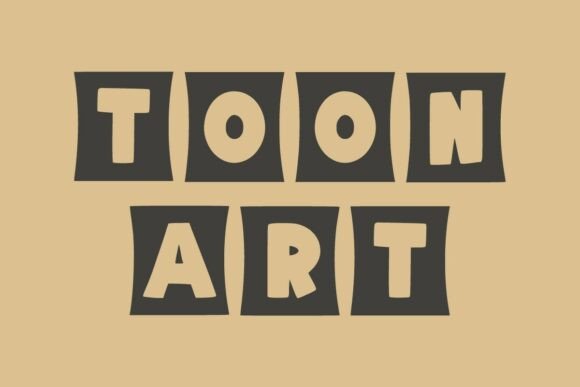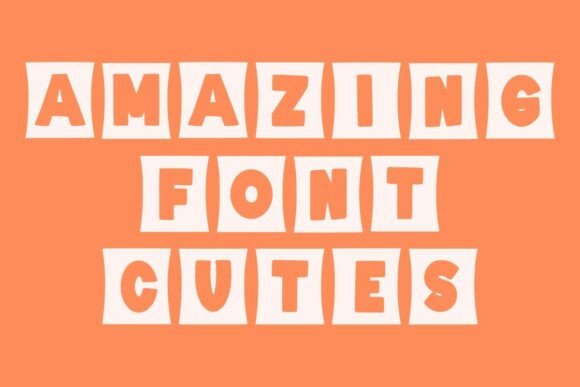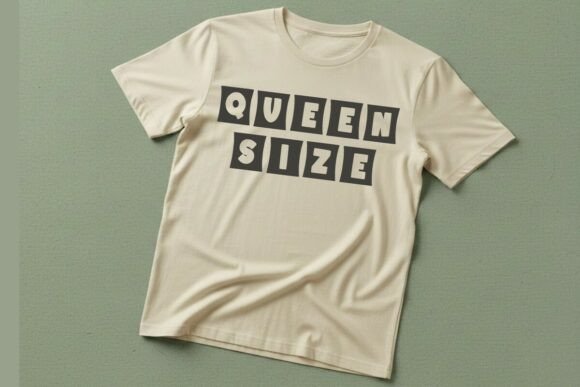
Introduction to Paper Bold Font
Introducing Paper Bold – the ultra-modern, playful font designed to infuse your creations with a vivacious splash of youth and ecstasy.
Each typographic character is beautifully encased in a distinctive frame, instantly elevating your creations Let it adorn your event invitations, promotional materials, pricing labels, or banners.
Paper Bold Font offers exceptional quality and versatility, making it a valuable addition to your design toolkit. Whether you’re creating for personal projects or commercial use, Paper Bold Font delivers professional results.